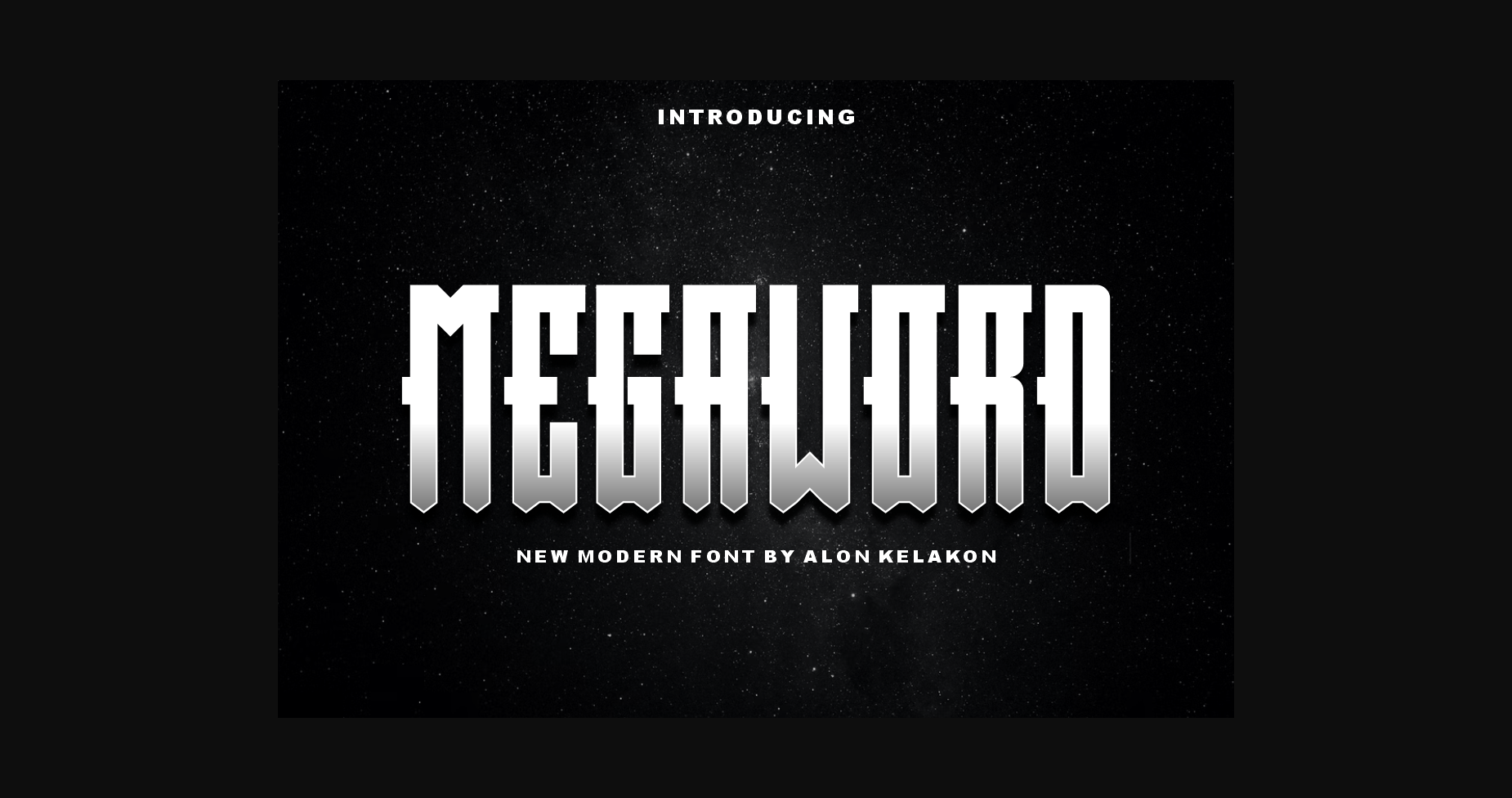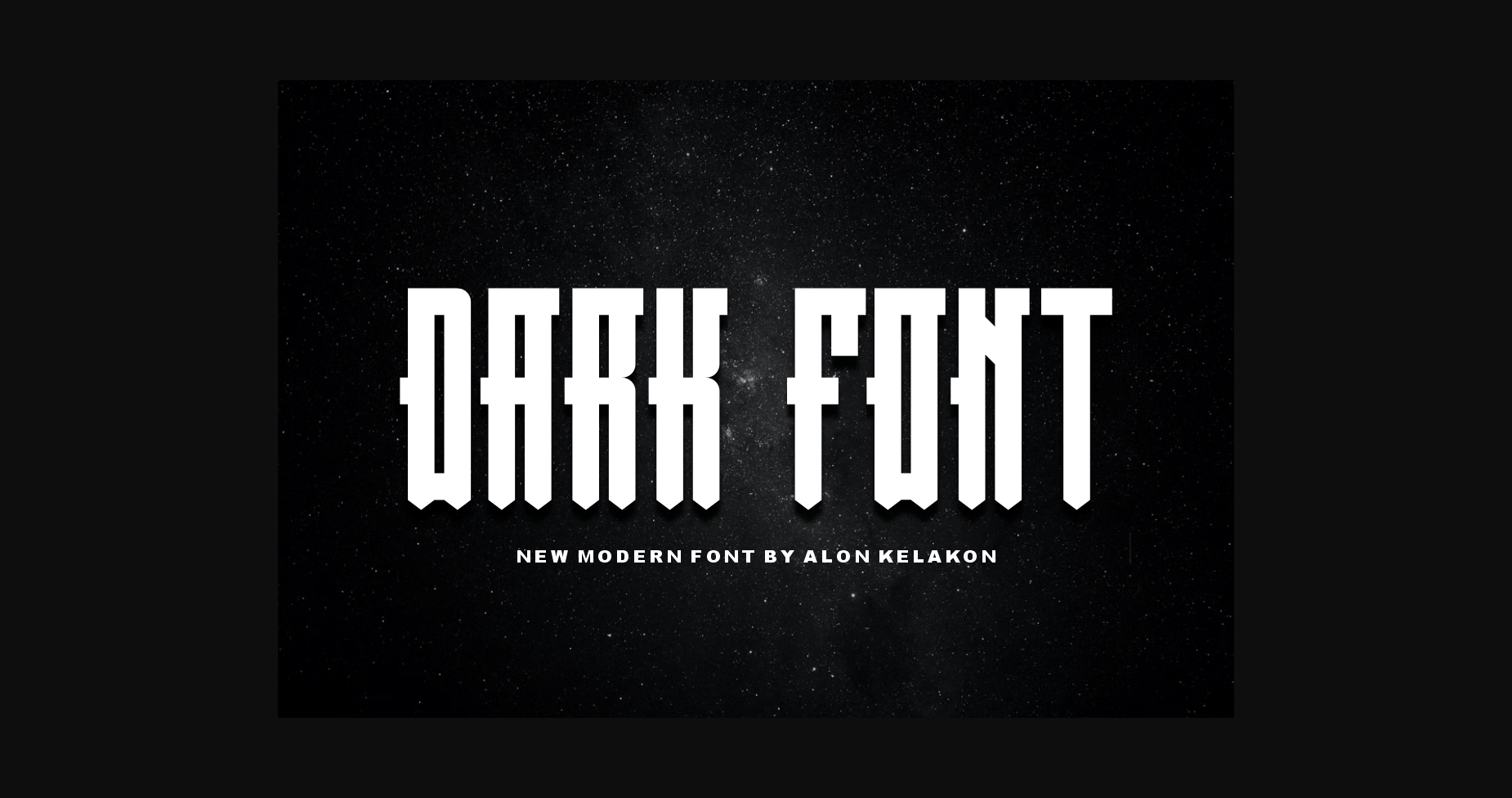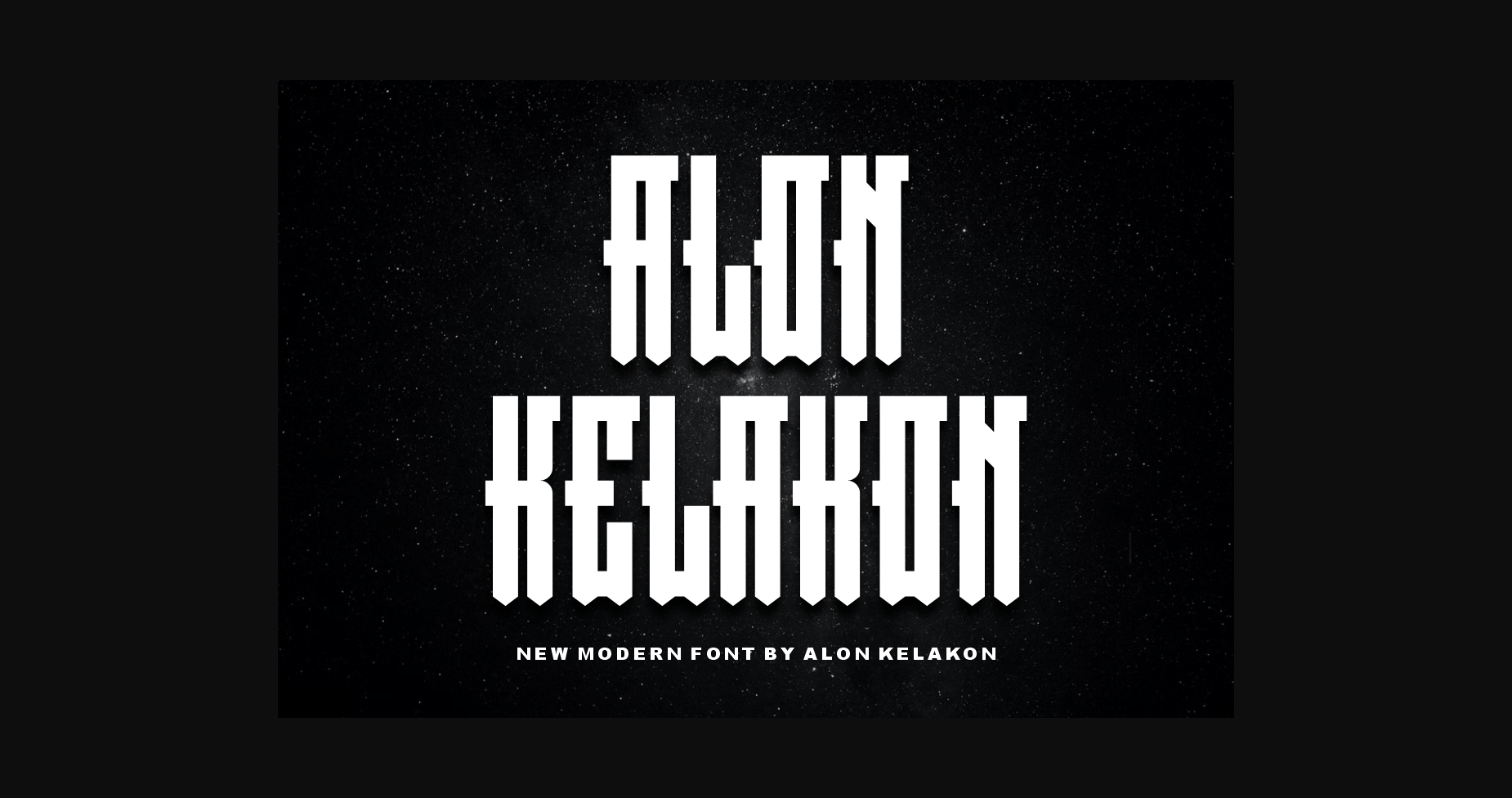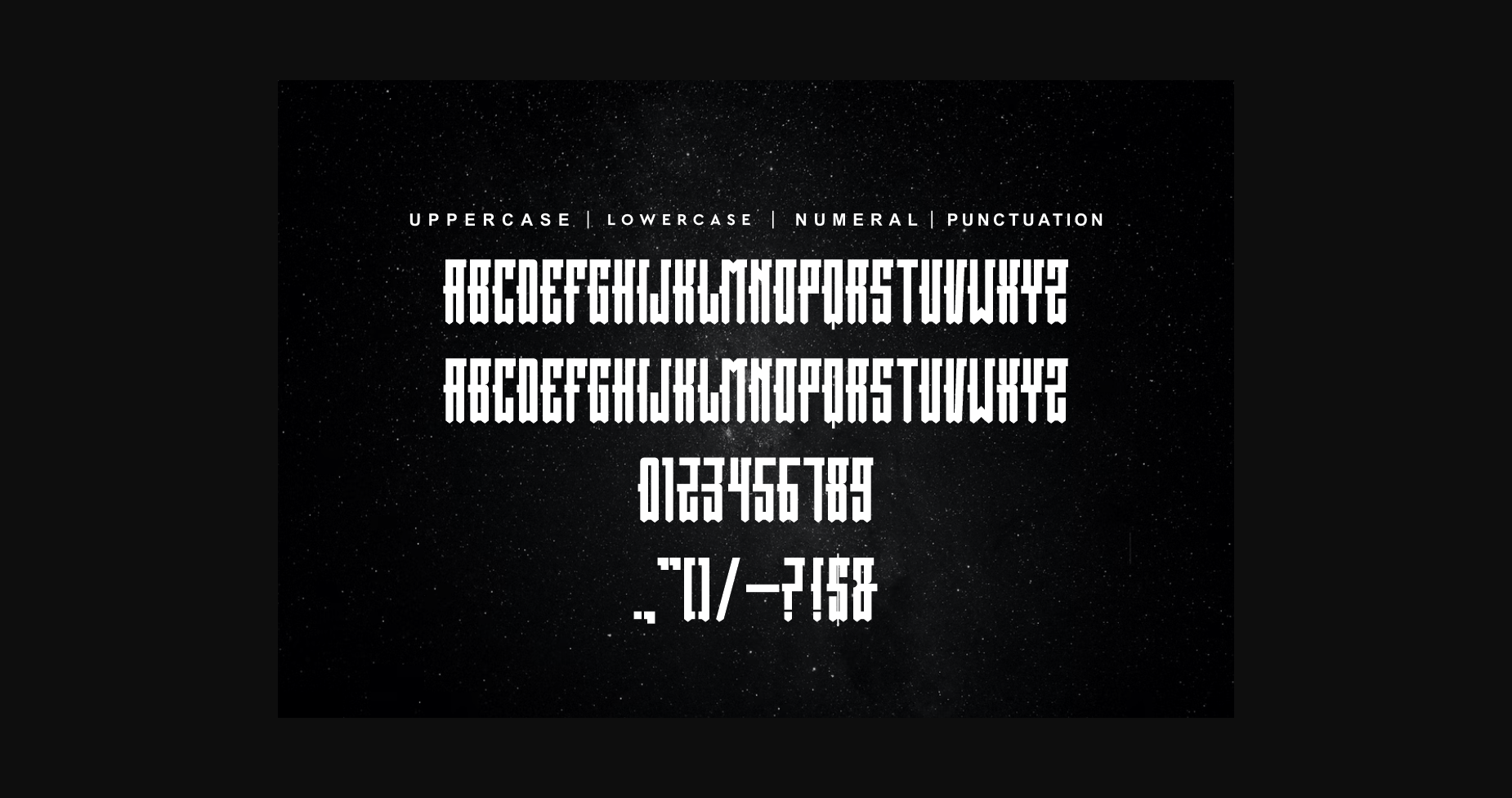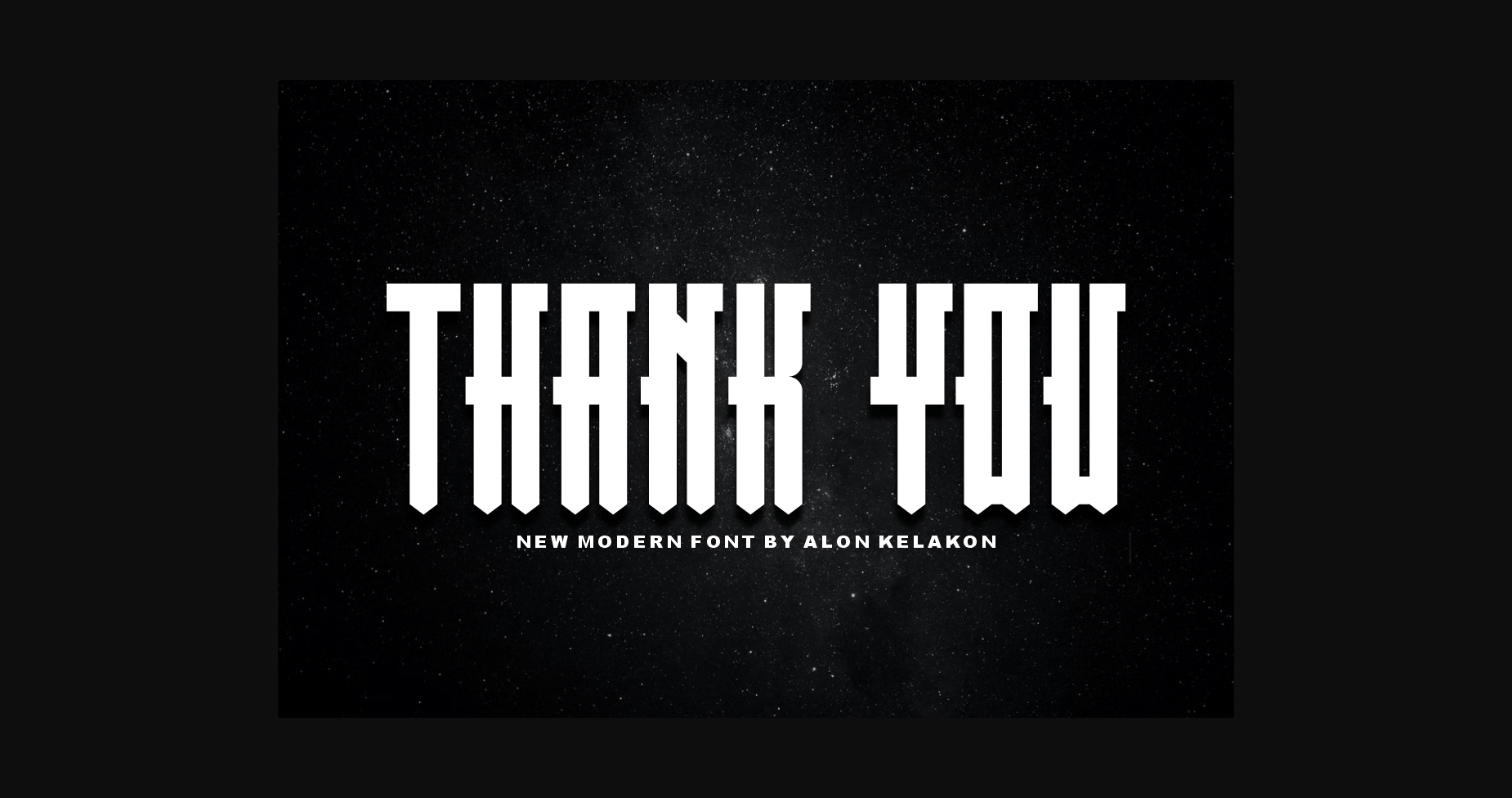
Megaword Font
About Megaword Font
Megaword Font is perfect for your creative ideas, both formal and informal. It has a modern style with a touch of creative ideas that is very suitable to be applied anywhere that requires creative ideas.